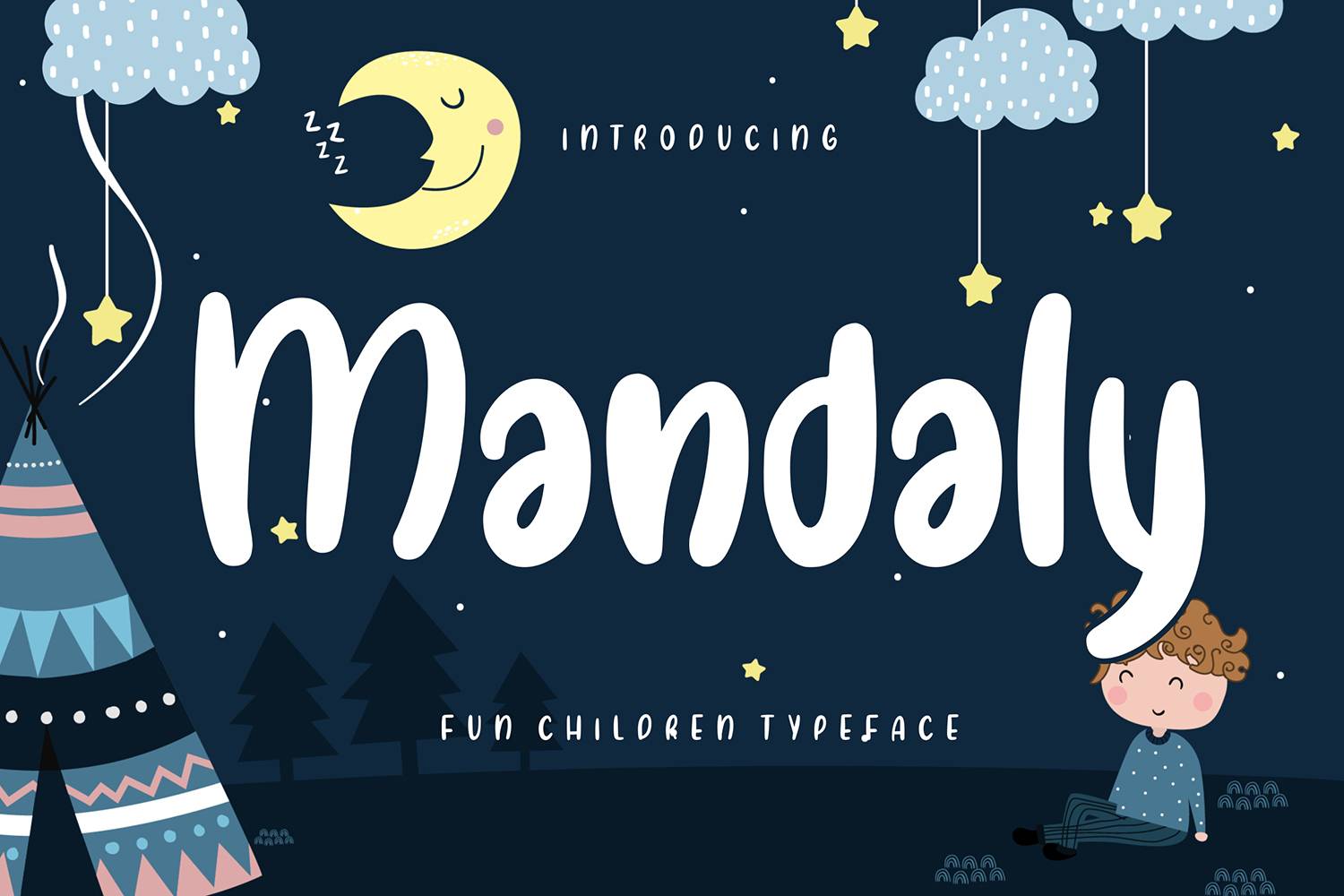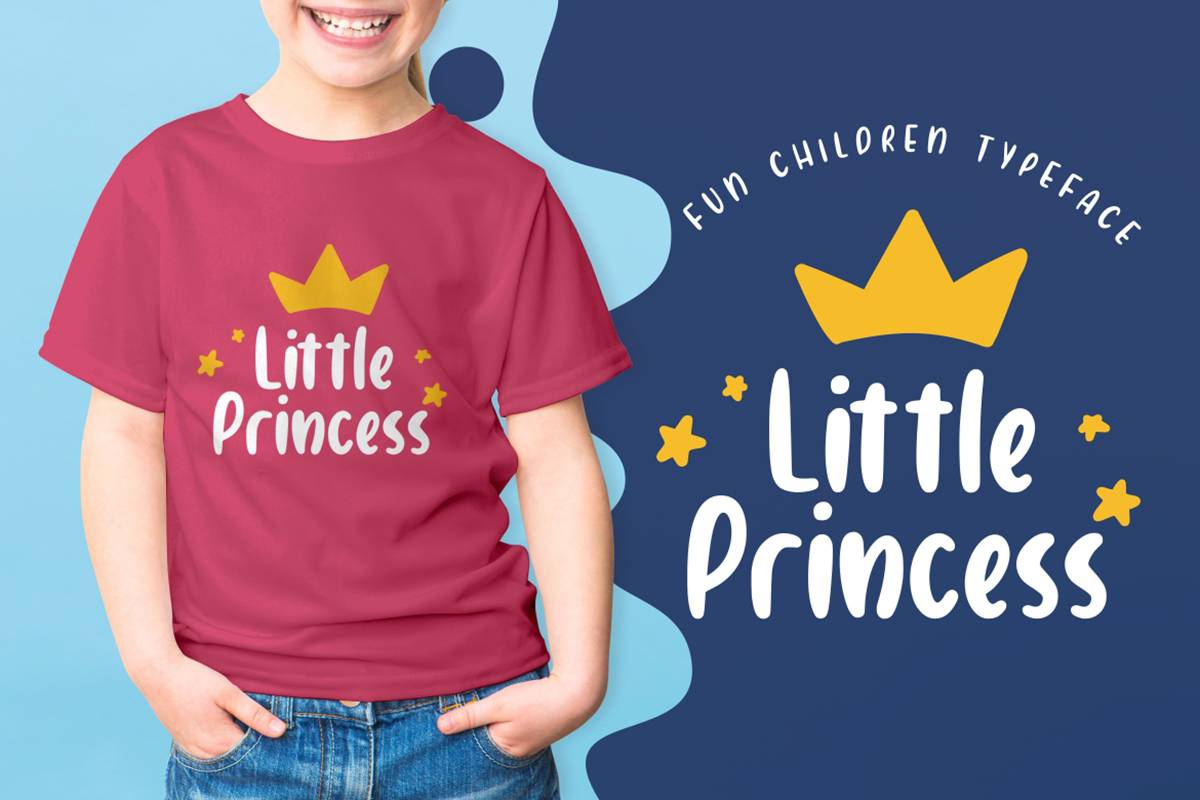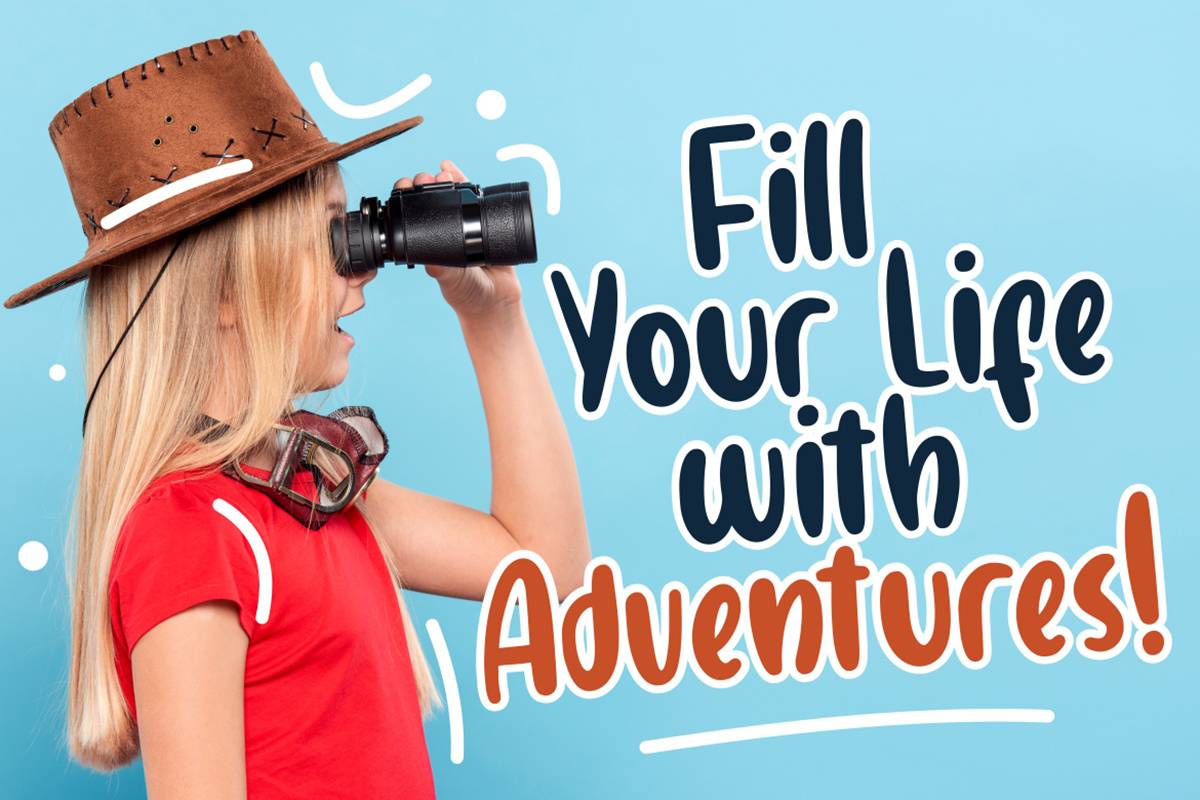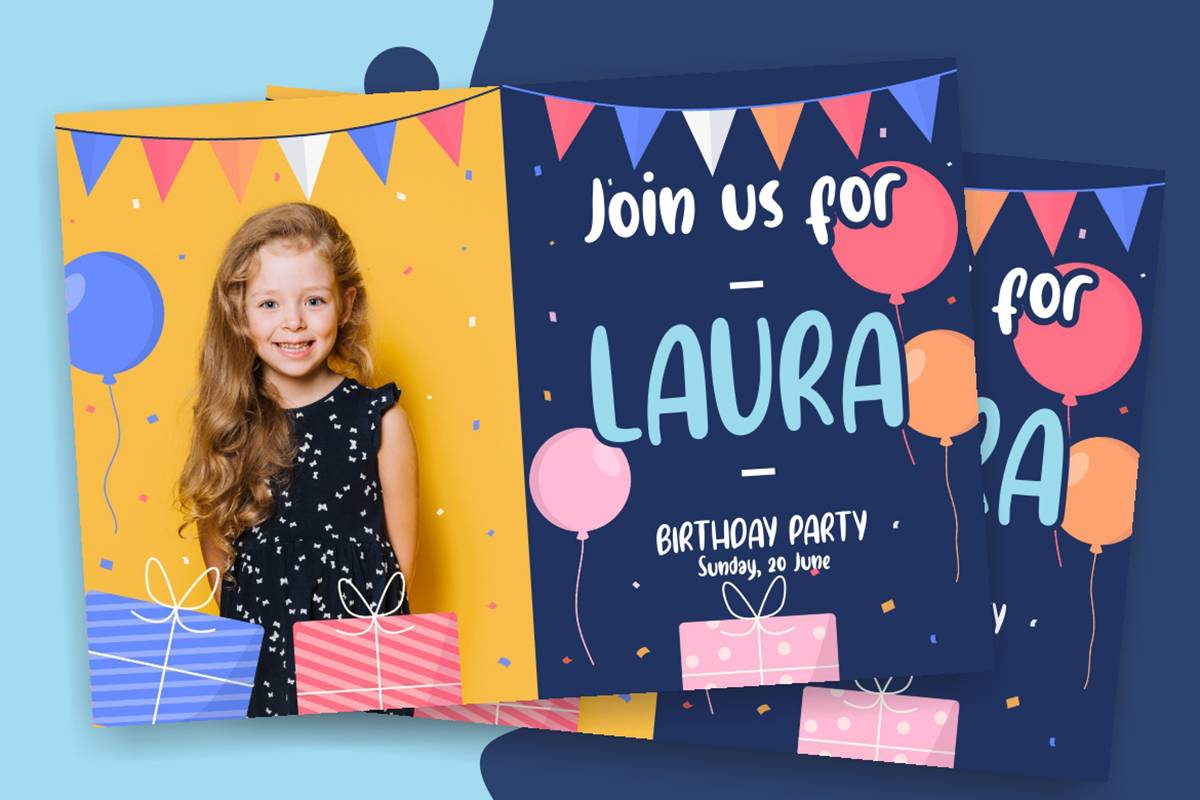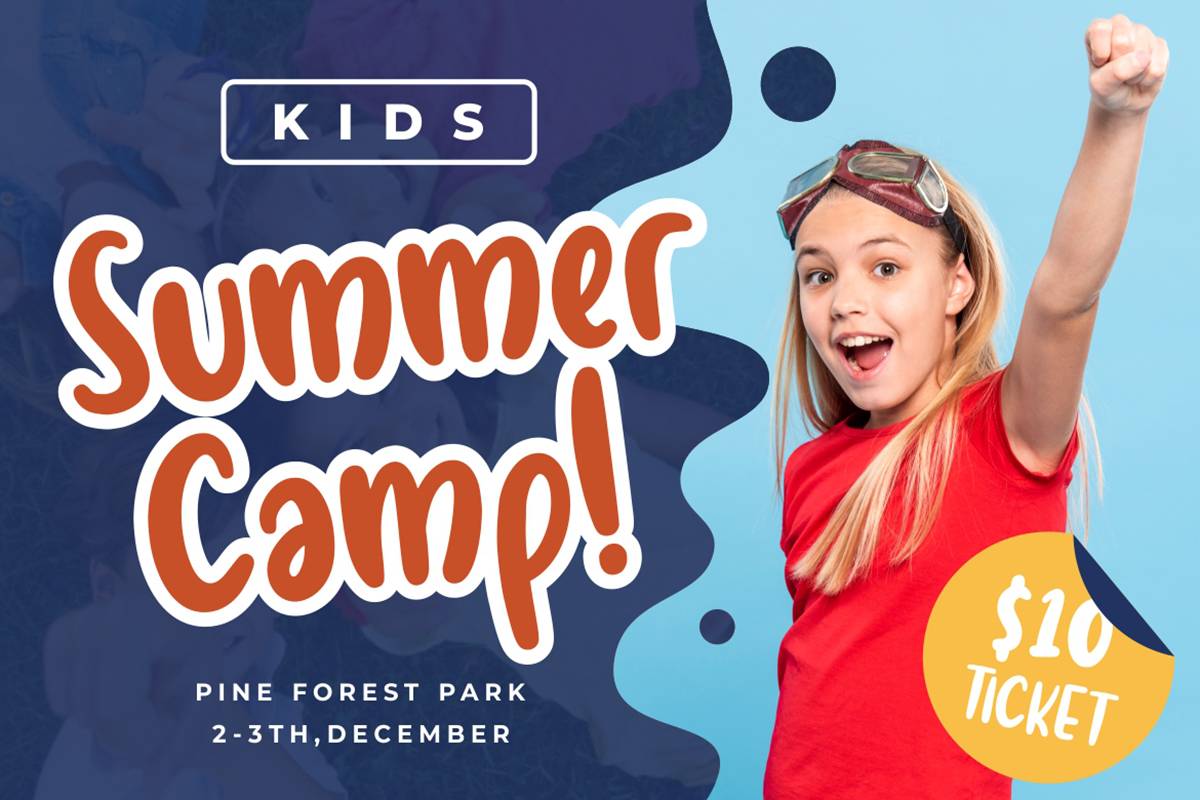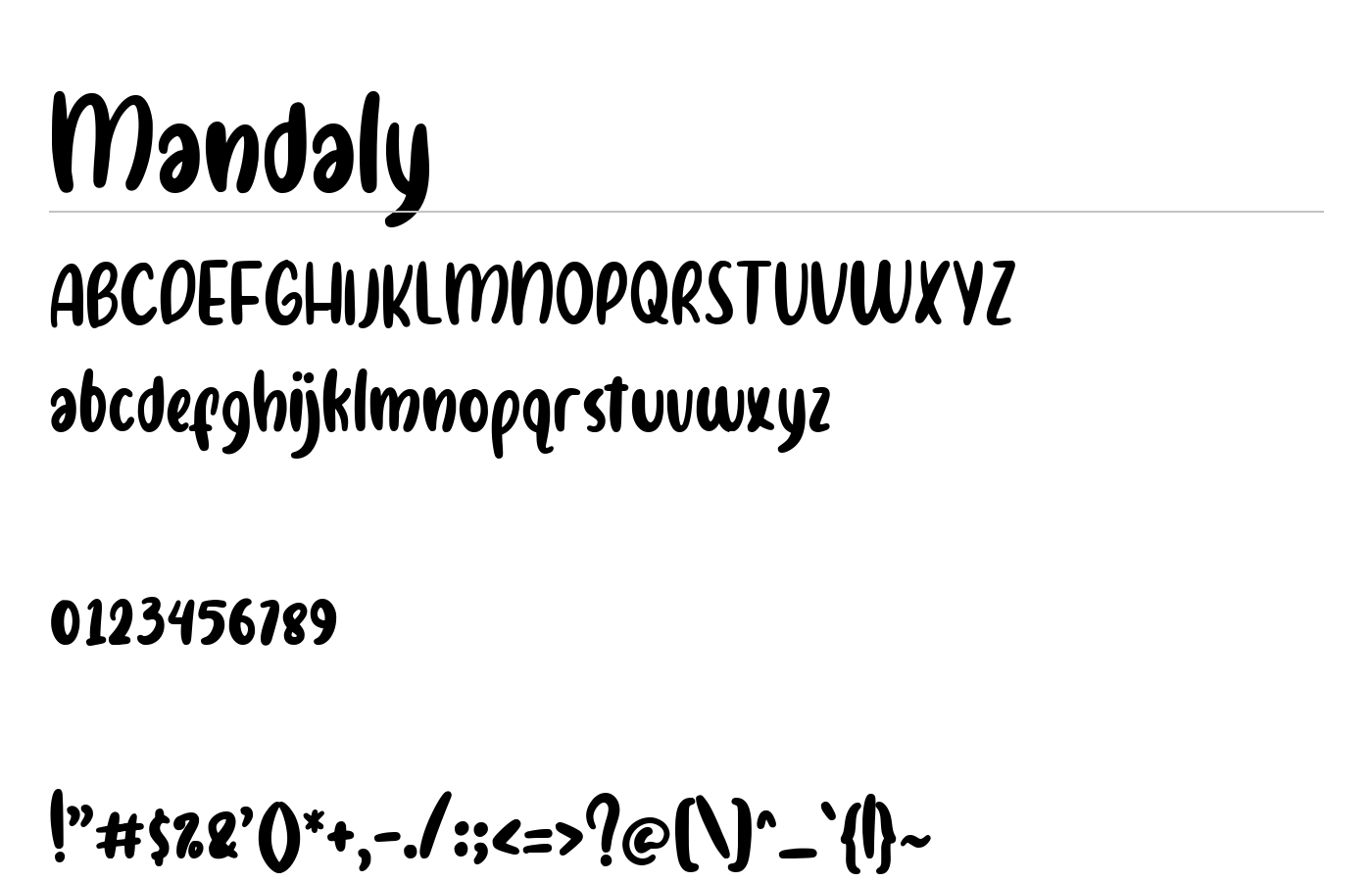
Mandaly is a playful and informal handwritten font featuring rounded, slightly irregular letterforms that evoke a friendly and approachable feel. Its moderate weight and tall x-height enhance readability, making it ideal for casual branding, children’s books, and creative projects that benefit from a warm, personal touch. This font works well in headlines, invitations, and packaging where a lively and charming personality is desired.
Mandaly Font
About Mandaly Font